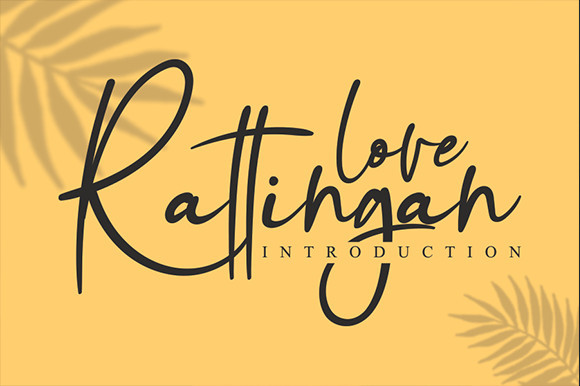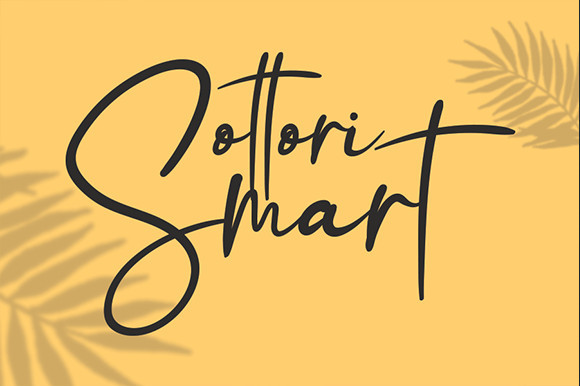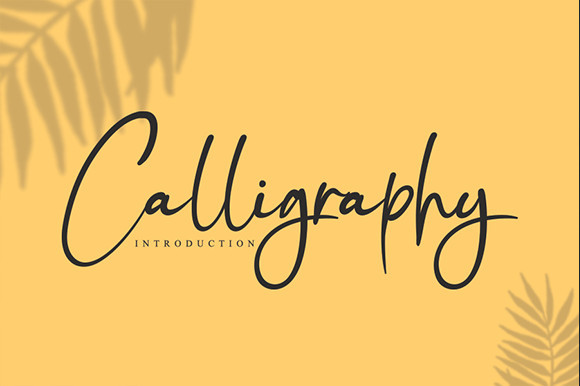
Love Rattingan Font
Love Rattingan is a relaxed, elegant and delicate handwritten font. Fall in love with its incredibly distinct and timeless style and use it to create spectacular designs!